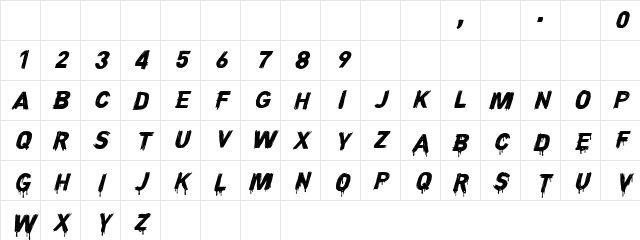
Complete CF Night of Terror PERSONAL Regular glyph index. Displaying only characters natively supported by CF Night of Terror PERSONAL Regular font.
CF Night of Terror PERSONAL is a composed and adaptable typeface that performs quietly and consistently across a wide range of design contexts.